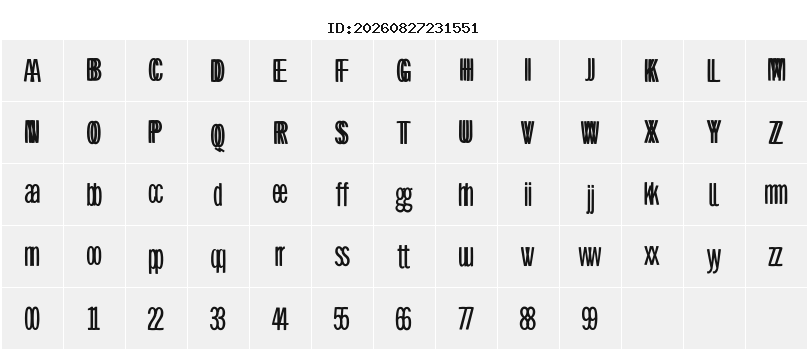
About TwinSetSansOne.ttf
TwinSetSansOne.ttf is a modern, elegant sans-serif font designed for ultimate readability and visual harmony. Perfect for branding, headlines, web design, and print materials.